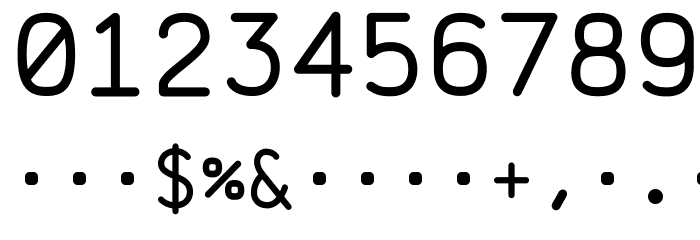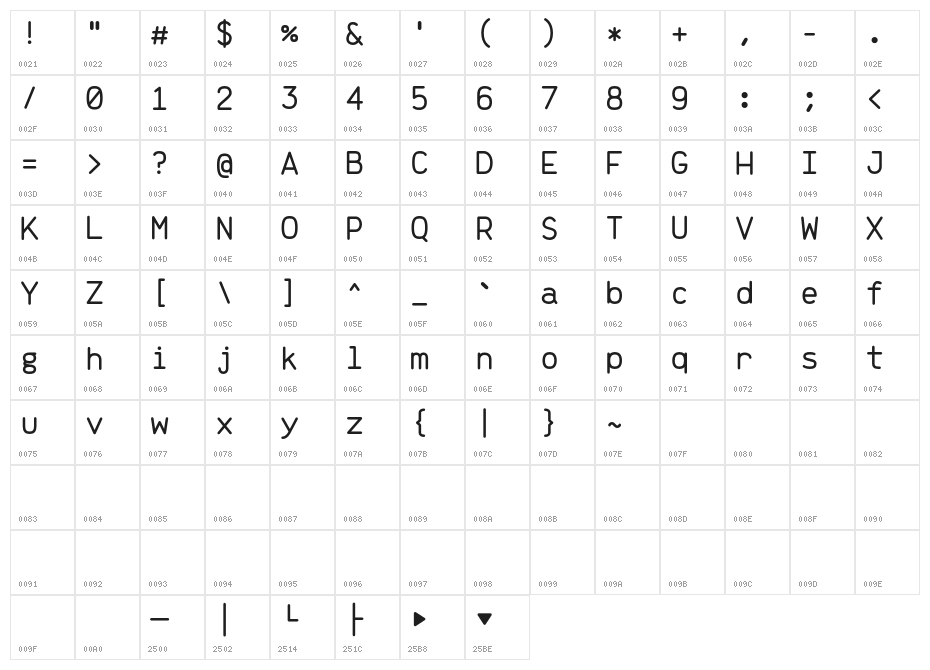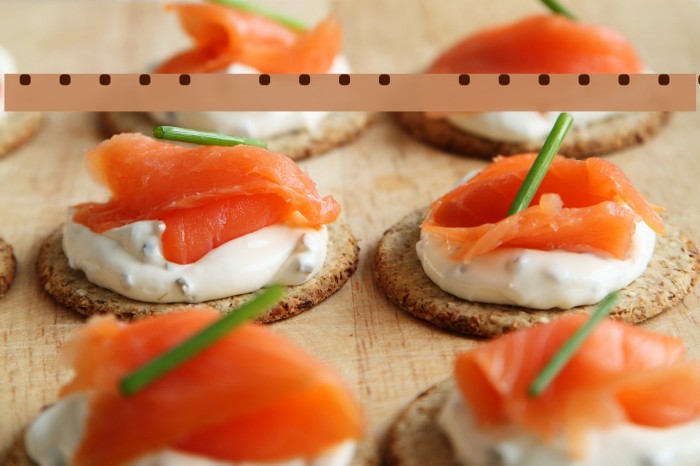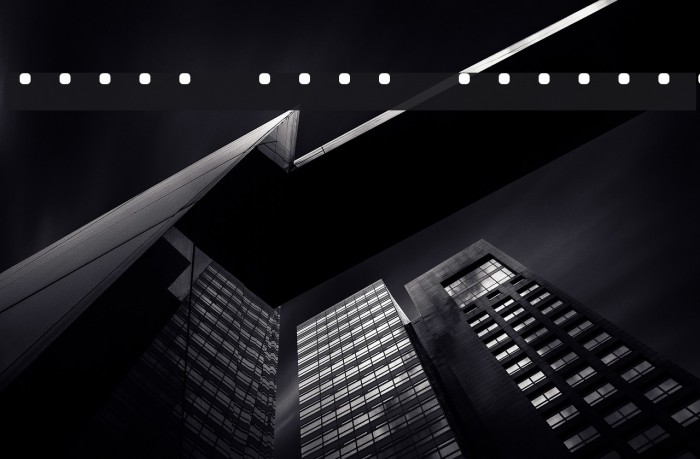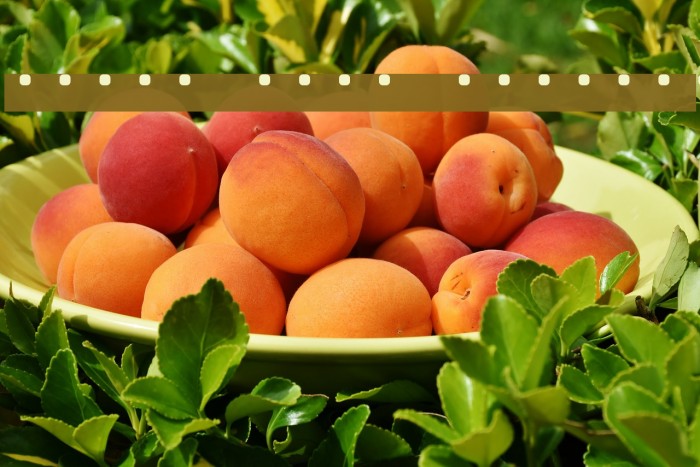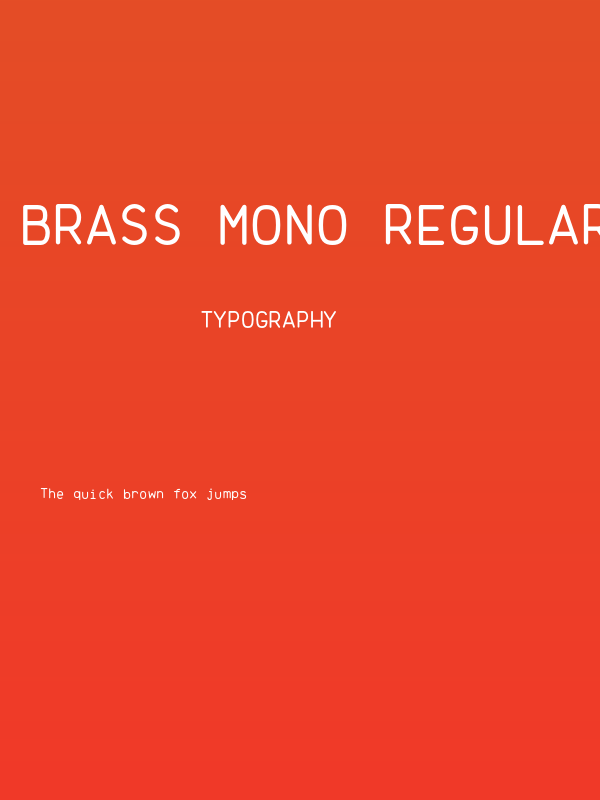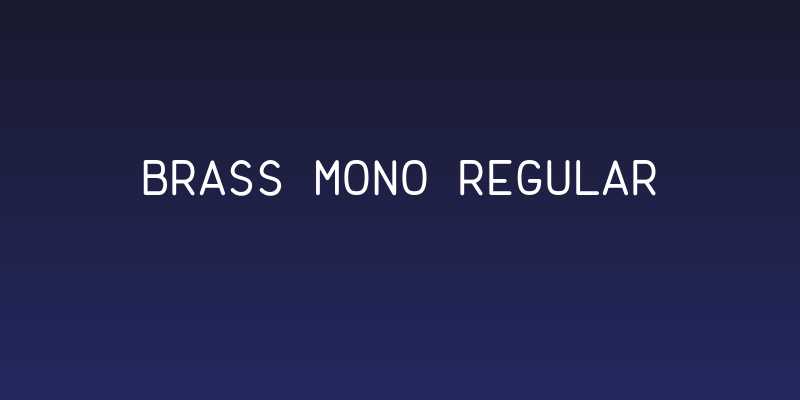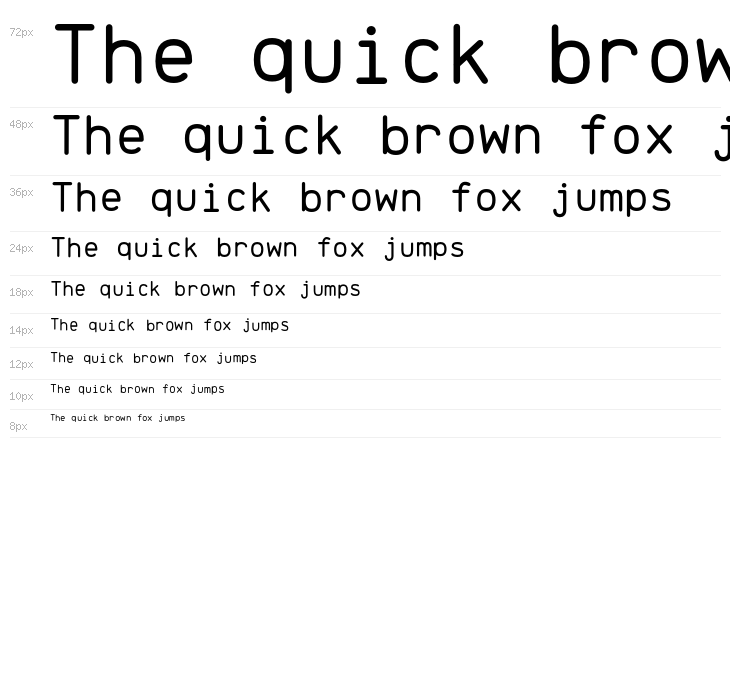
Brass Mono Regular Font
Brass Mono Regular Description
This font is a monospaced typeface characterized by its uniform character width, which is ideal for coding and tabular data. It features clean, geometric lines with rounded edges, giving it a modern and approachable appearance. The numerals are distinct and easily readable, making it suitable for technical documents. The special characters are well-defined, maintaining the font's clarity and functionality. Its simplicity and precision make it versatile for various digital applications.
| Use Case | Coding, Technical documents, Data tables |
| Proposed Projects | Perfect for coding environments, technical documentation, and data tables. |